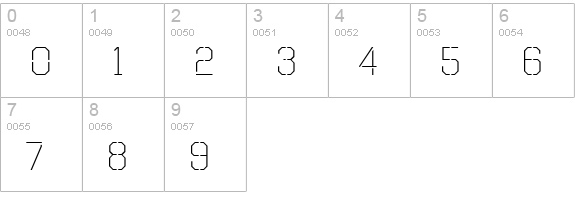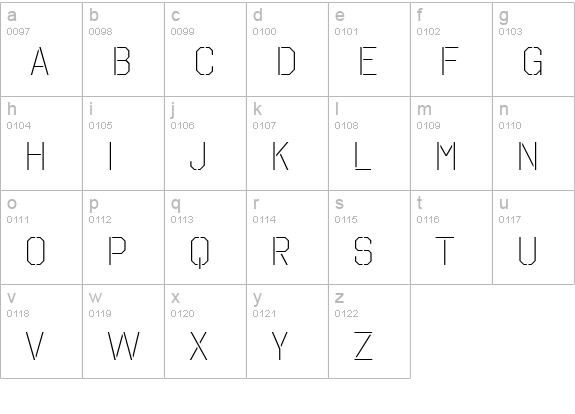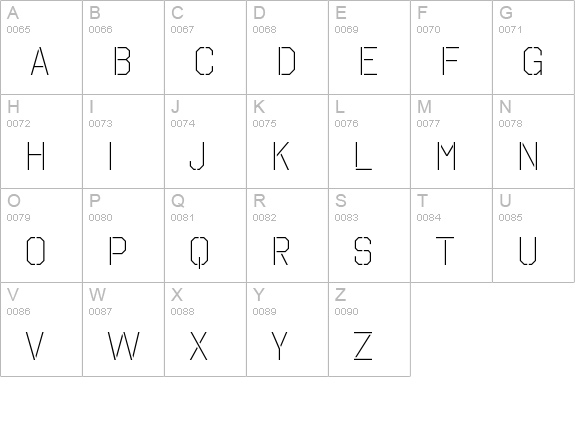
Octin Stencil Lt is a bold and striking font that exudes a strong and modern aesthetic. The geometric shapes and sharp edges of this stencil typeface make it perfect for creating eye-catching designs with an edgy twist. Its clean and minimalistic look adds a touch of sophistication to any project, whether it's for posters, logos, or branding materials. One of the best things about Octin Stencil Lt is that it is completely free to download. You can easily access this versatile font at FontsMarket.com, where it is available for instant download. With its unique style and versatility, Octin Stencil Lt is a must-have font for any designer looking to make a bold statement in their work.